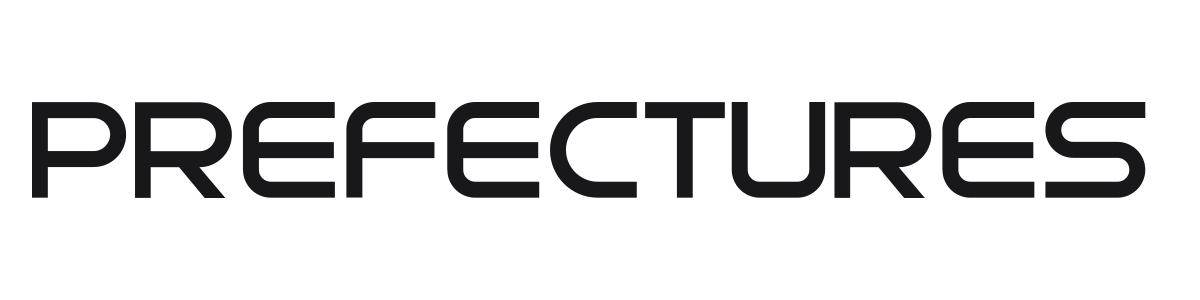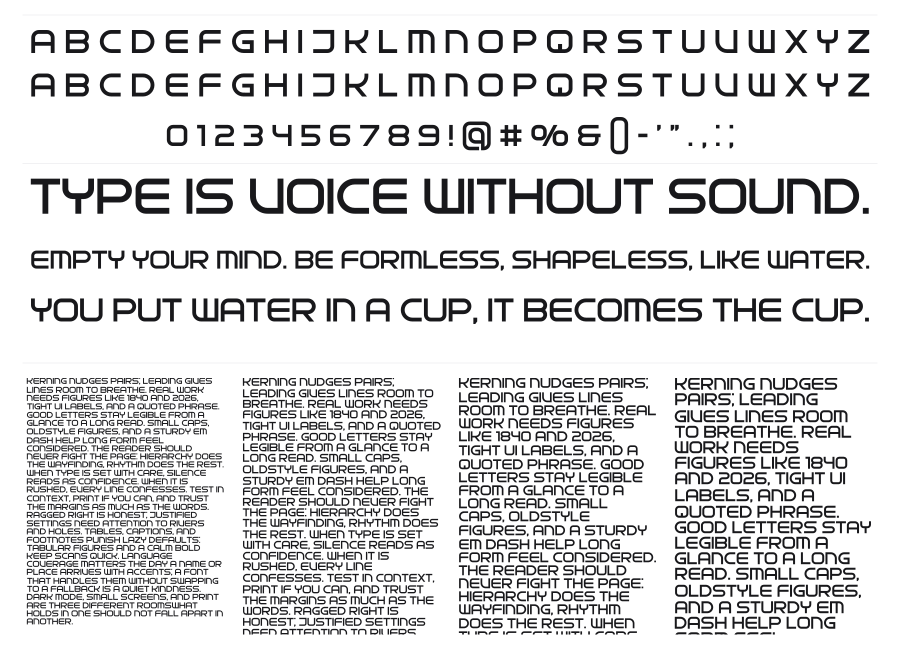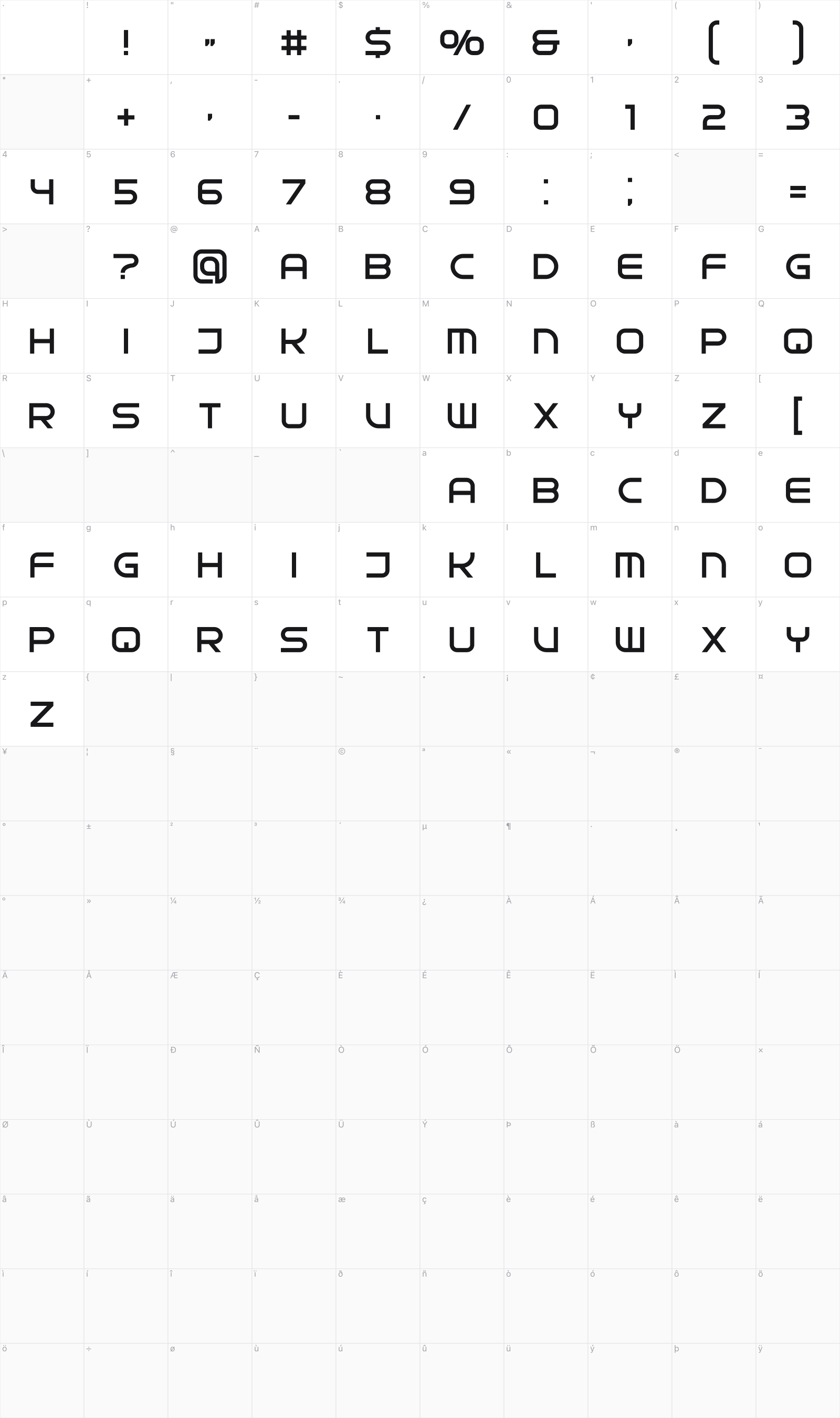
Prefectures
Prefectures is a wide geometric sans-serif built around squarish forms with softly rounded corners and near-monoweight strokes. The design sits somewhere between a technical industrial face and a contemporary display font, giving it versatility across branding, headlines, and game interfaces. Its clean uniformity makes it easy to set tightly without losing legibility.